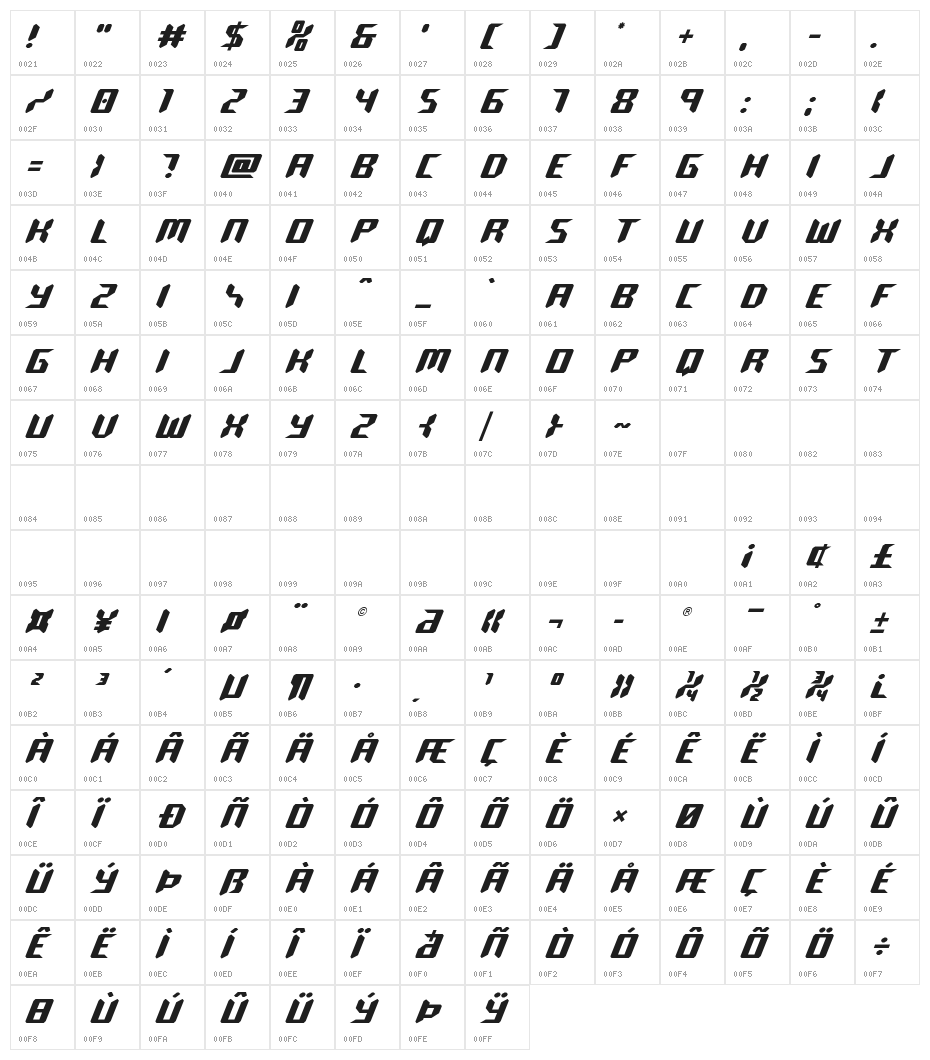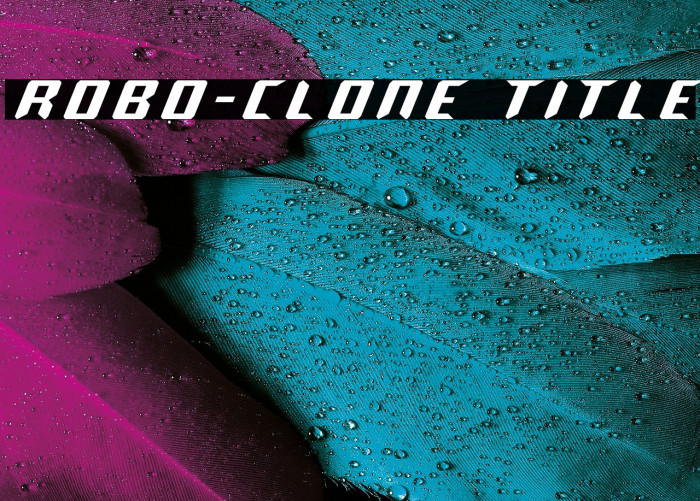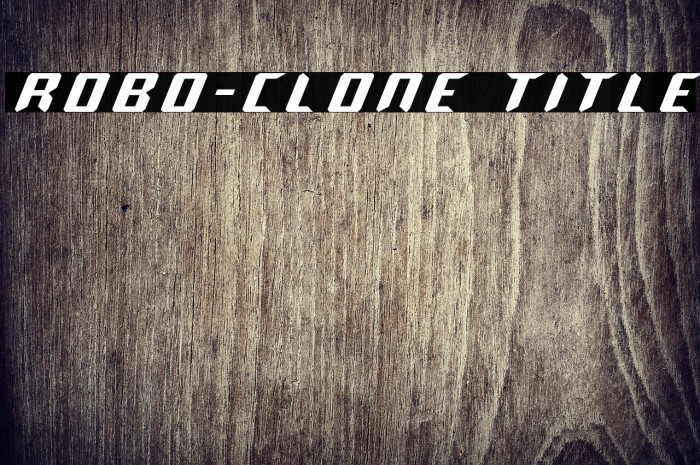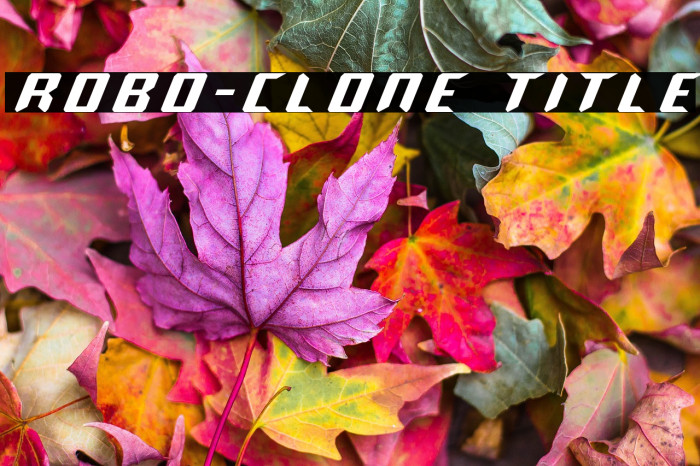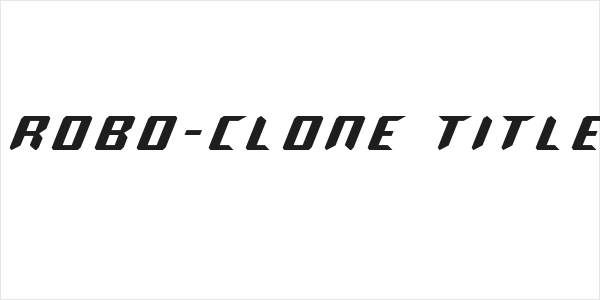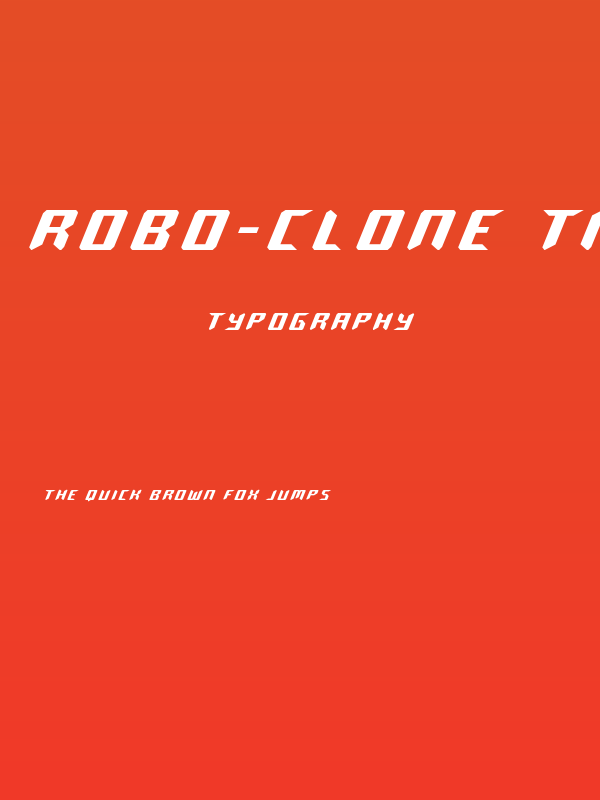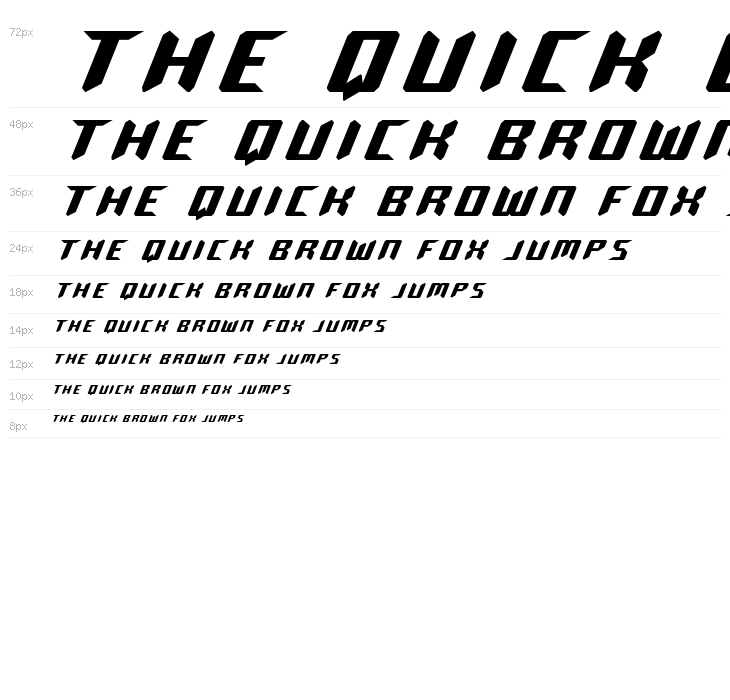
Robo-Clone Title Font
Robo-Clone Title Description
This font features a futuristic and angular design, characterized by sharp edges and a bold presence. The letters are slightly slanted, giving a sense of motion and dynamism. Each character is distinct, with a consistent geometric style that suggests a modern, tech-inspired aesthetic. The numbers and special characters maintain this theme, ensuring uniformity across all glyphs. The font's unique style makes it ideal for projects that require a strong, impactful visual statement.
| Proposed Projects | Ideal for tech branding, sci-fi themed designs, video game titles, and futuristic posters. |